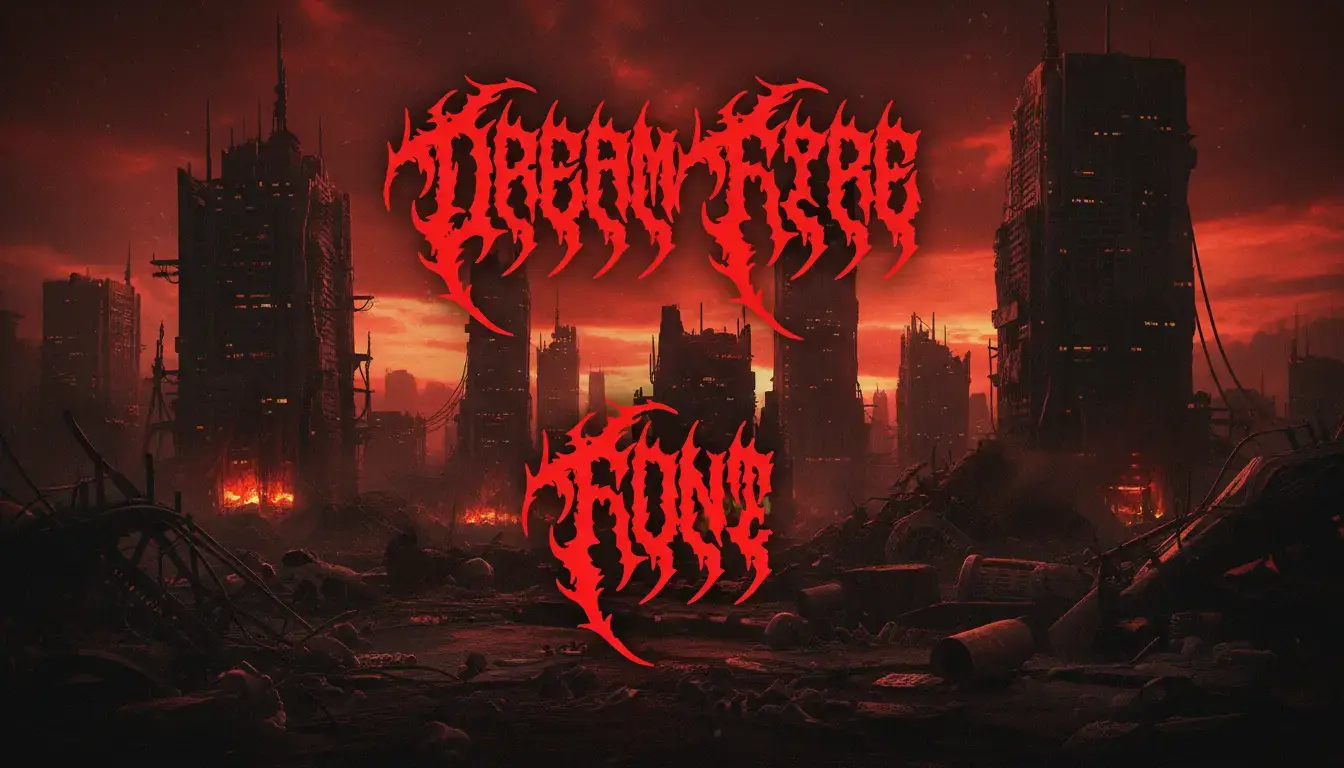
DreamFire Font
DreamFire is a gothic font created by Rony Rizki Jaya and released through Ronny Studio. Sharp, dark and dramatic, it follows the blackletter tradition of old European manuscripts. It's a free download, and you can try it with your own text in the preview above first.
What You Can Type With DreamFire
You get every letter from A to Z in both cases and all the numbers from 0 to 9, which means DreamFire can handle full sentences, dates and prices. Everyday marks like &, !, ? and @ are there too. Thanks to its accented letters, it also works for Spanish, French, German, Portuguese and Italian, not just English.
Where DreamFire Works Best
DreamFire is a natural fit for tattoos, metal band logos and dark fantasy titles. Blackletter is very hard to read in all caps, so type in normal upper and lowercase.
Does DreamFire support accented letters?
Yes. DreamFire includes the accented letters needed for Spanish, French, German, Portuguese and Italian, so it works for more than just English.